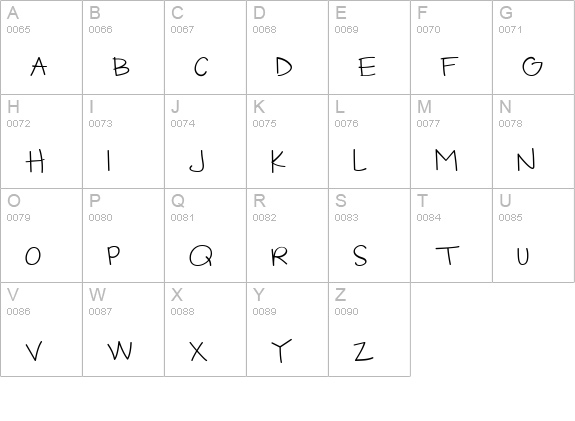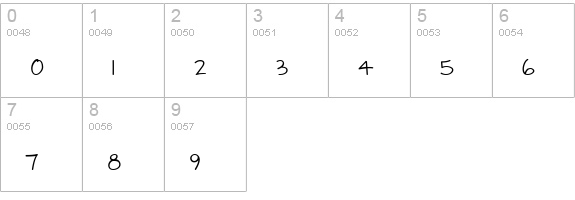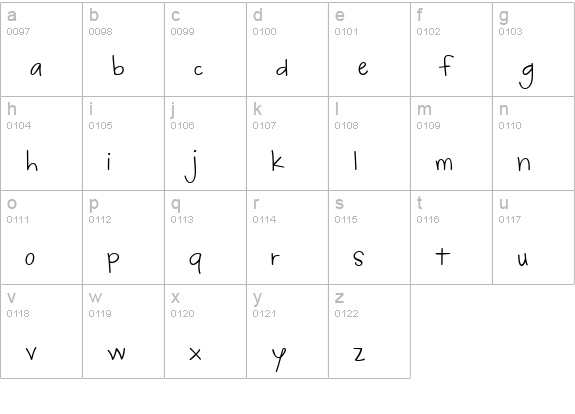
CK Jot Font Details
Introducing CK Jot font, a modern and stylish typeface that is perfect for a variety of design projects. With its sleek lines and contemporary feel, CK Jot font adds a touch of sophistication to any layout. Whether you're working on branding, advertising, or editorial design, this versatile font will elevate your work to the next level. What's even better is that CK Jot font is completely free to download at FontsMarket.com. Yes, you read that right – you can access this high-quality font at no cost! Don't miss out on the opportunity to enhance your designs with CK Jot font today. Download it now and start creating stunning visuals that stand out from the crowd.